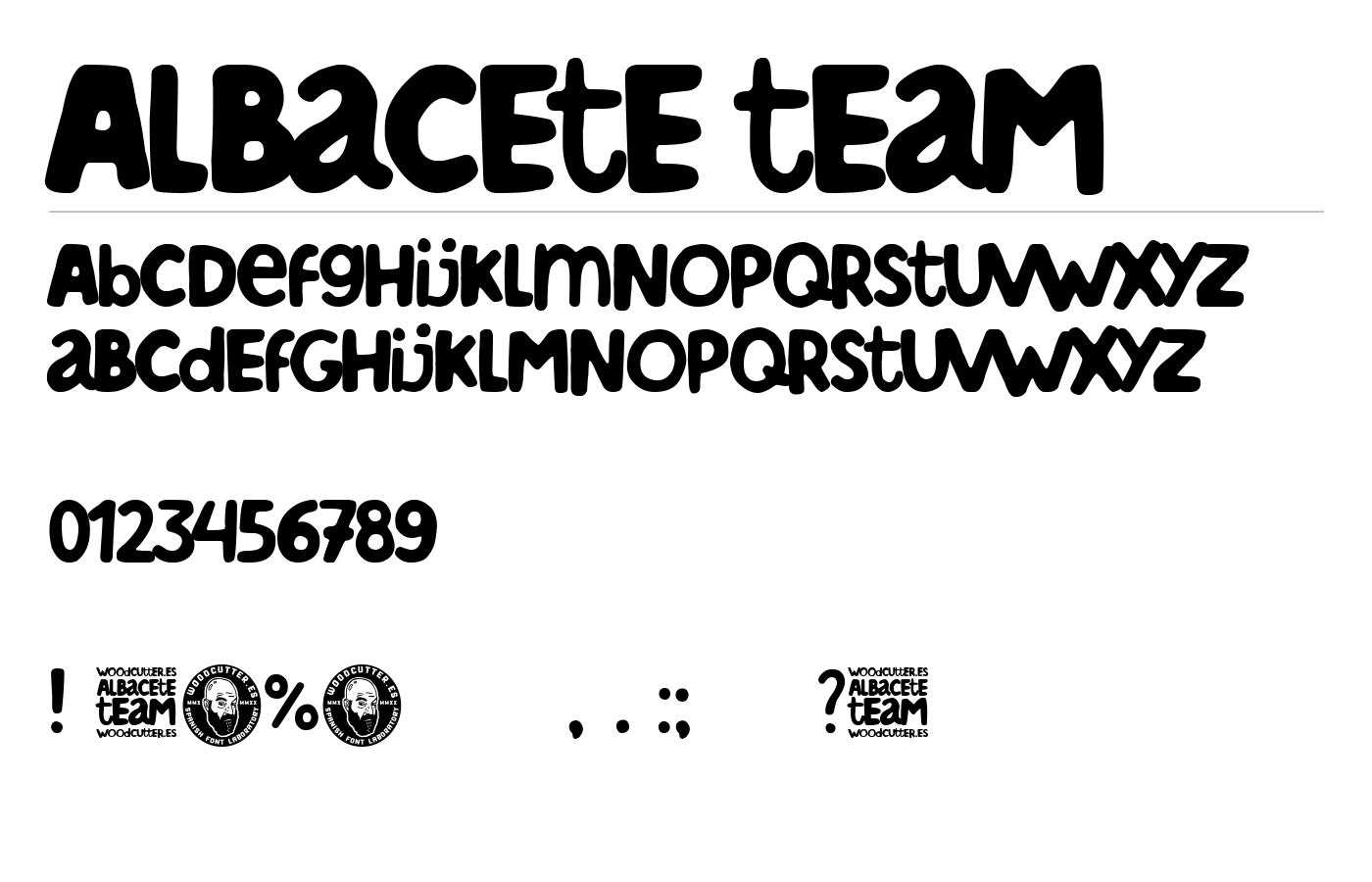
Albacete Team is a playful and bold sans serif font with a rounded, chunky appearance that gives it a friendly and casual vibe. Its irregular shapes and uneven strokes create a hand-drawn feel that works great for fun, informal designs like posters, children’s books, and creative branding. This font’s unique character shapes and strong presence make it perfect for grabbing attention in headlines and logos.
Albacete team Font
About Albacete team Font